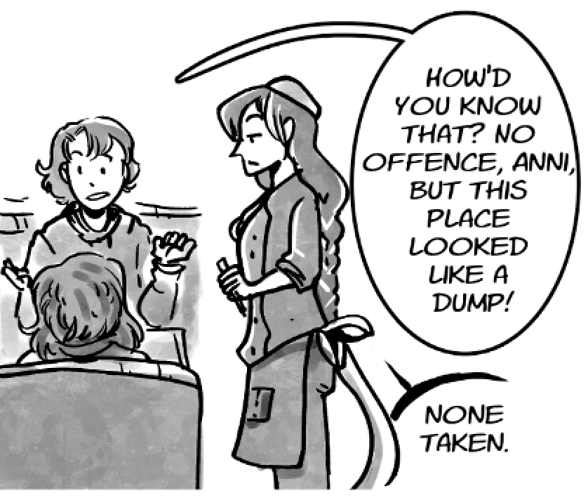
But yeah, it does look like a custom font, but I know the creator only downloads her fonts.
Yeah, it's very similar, but the kerning isn't quite the same (and Anime Ace is my go to all the time, so I know it's not that xD)